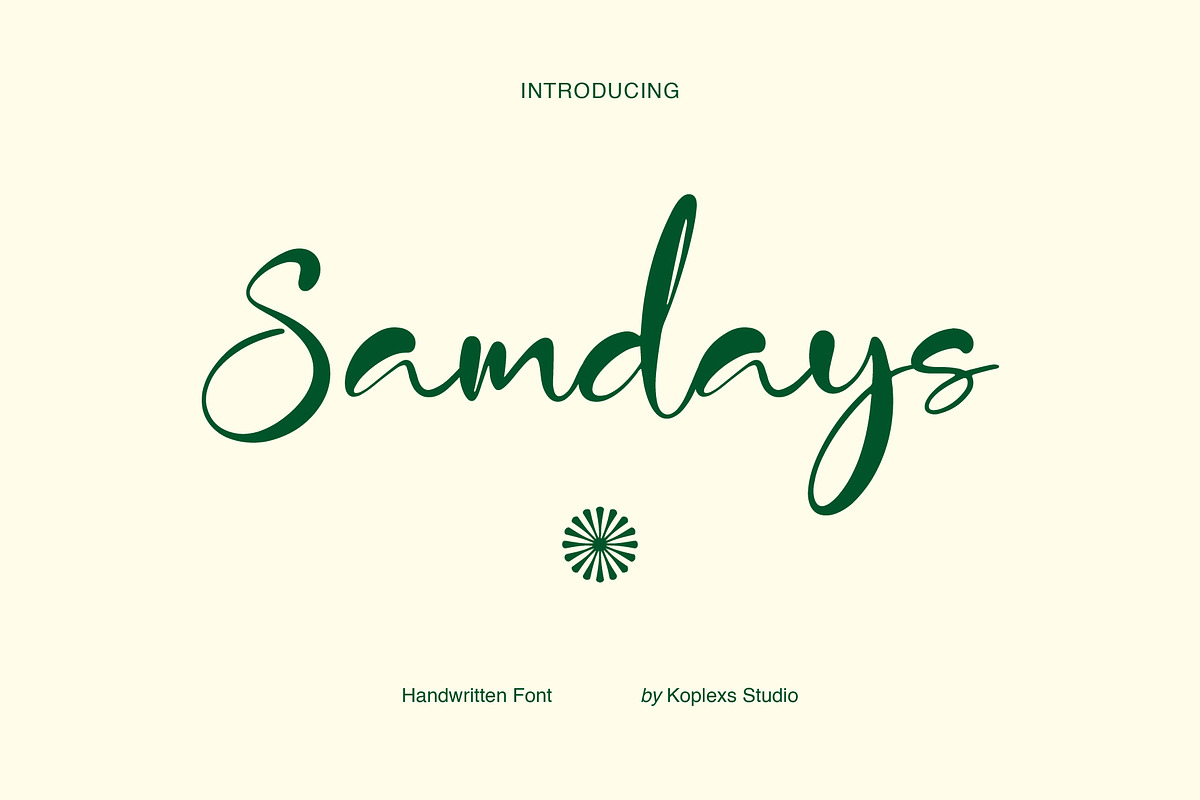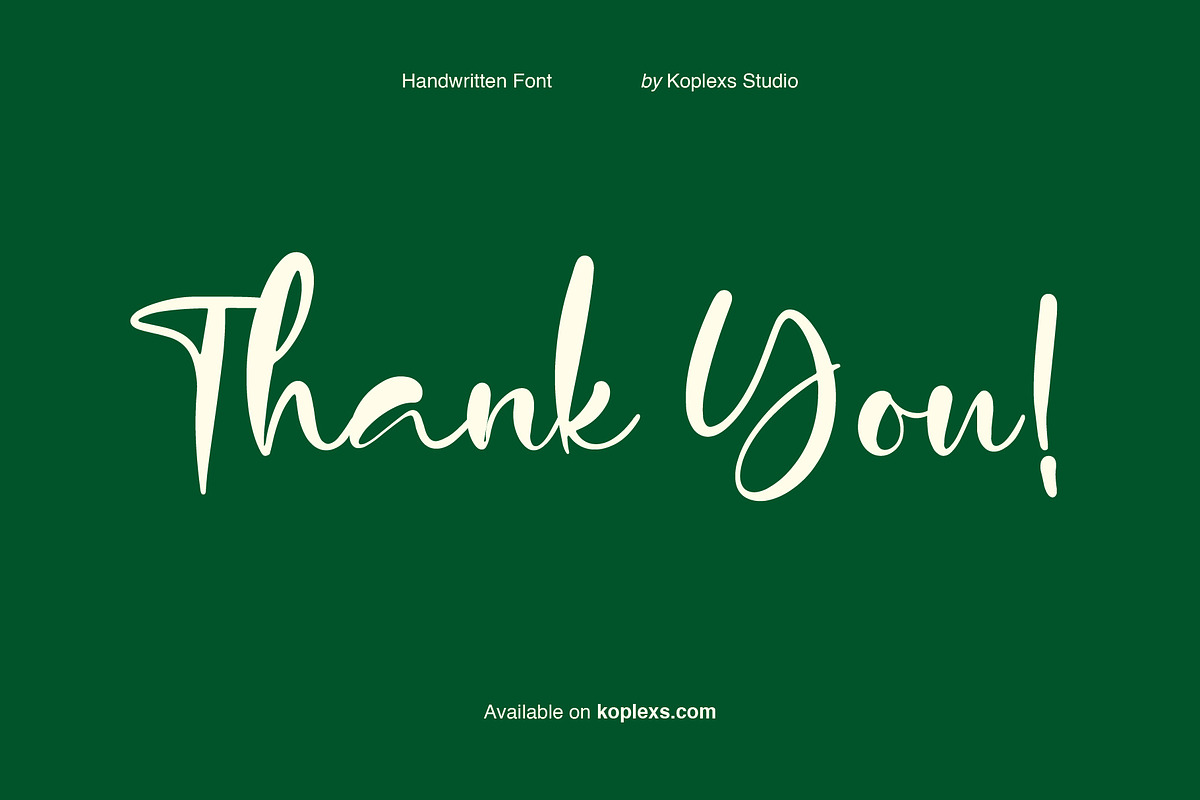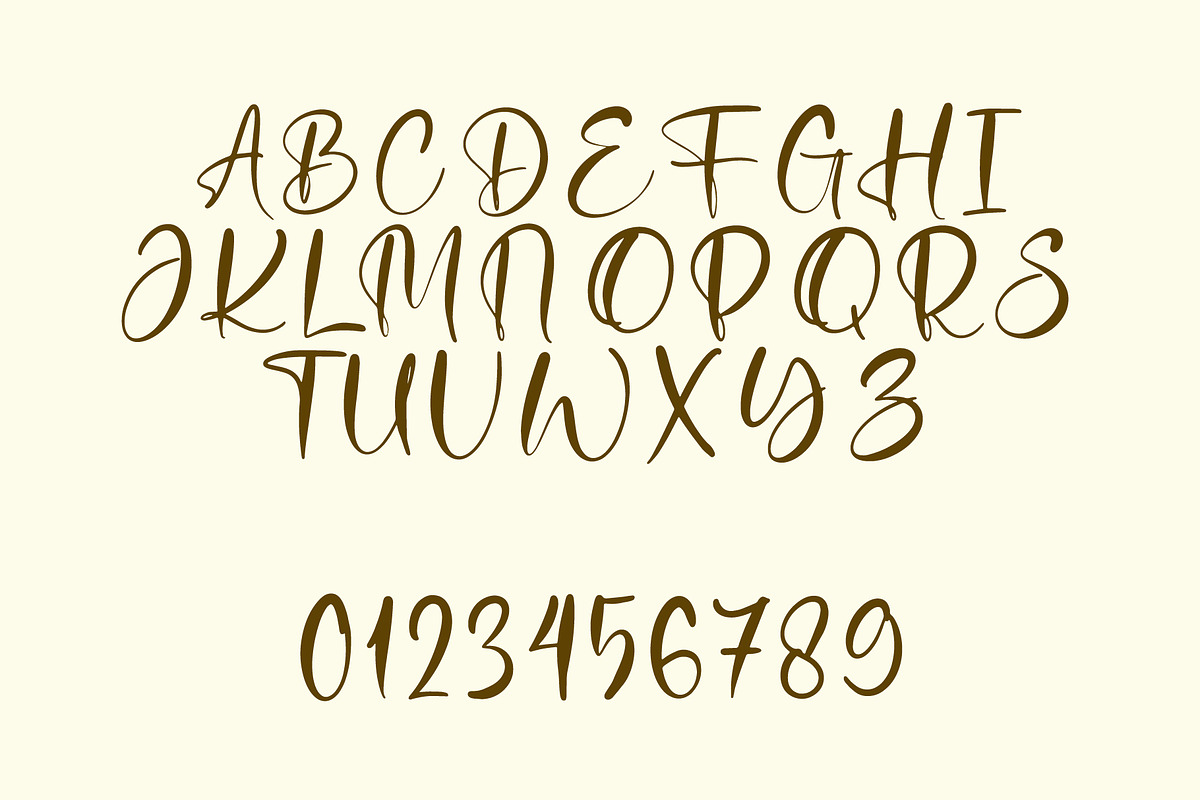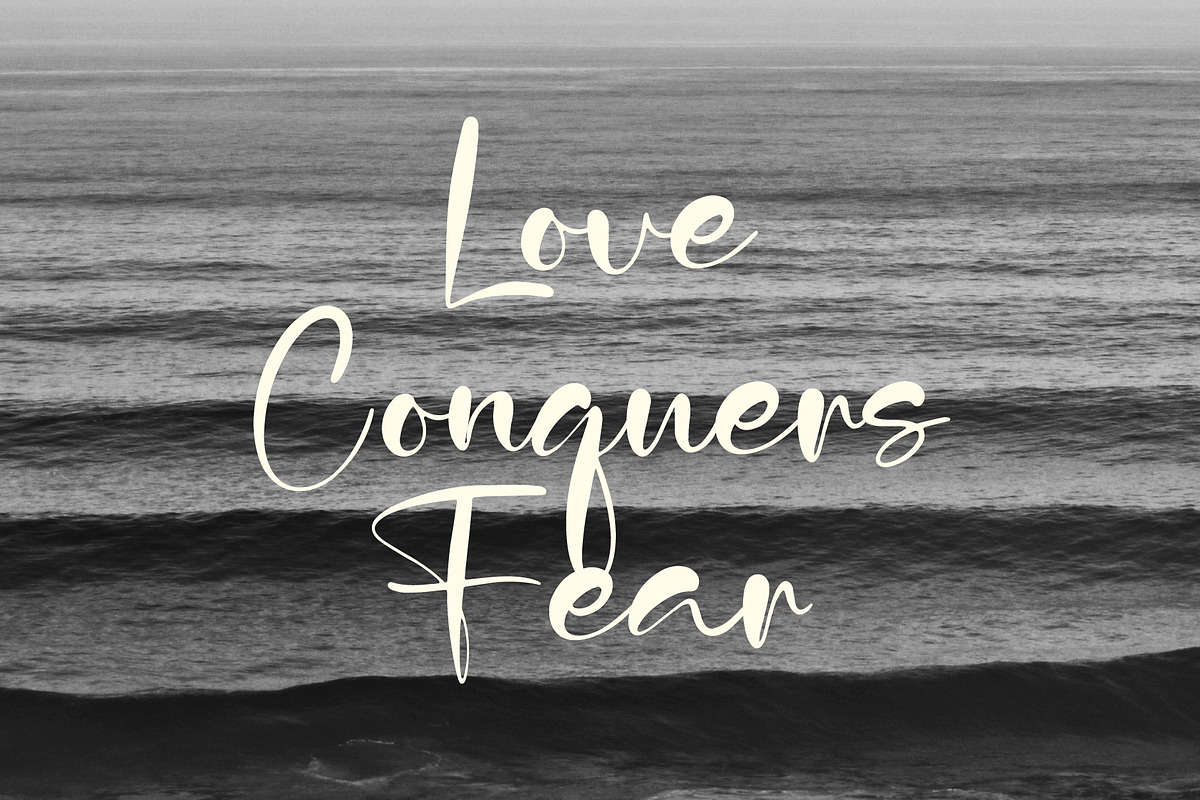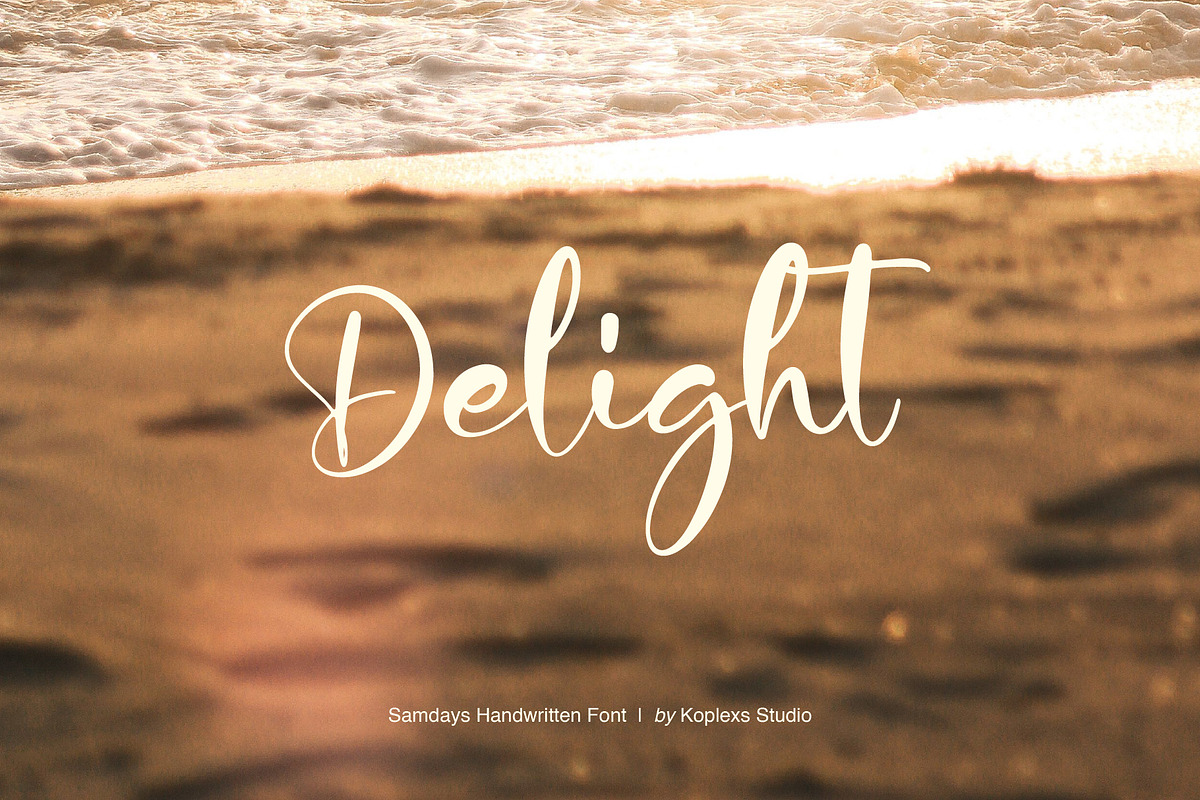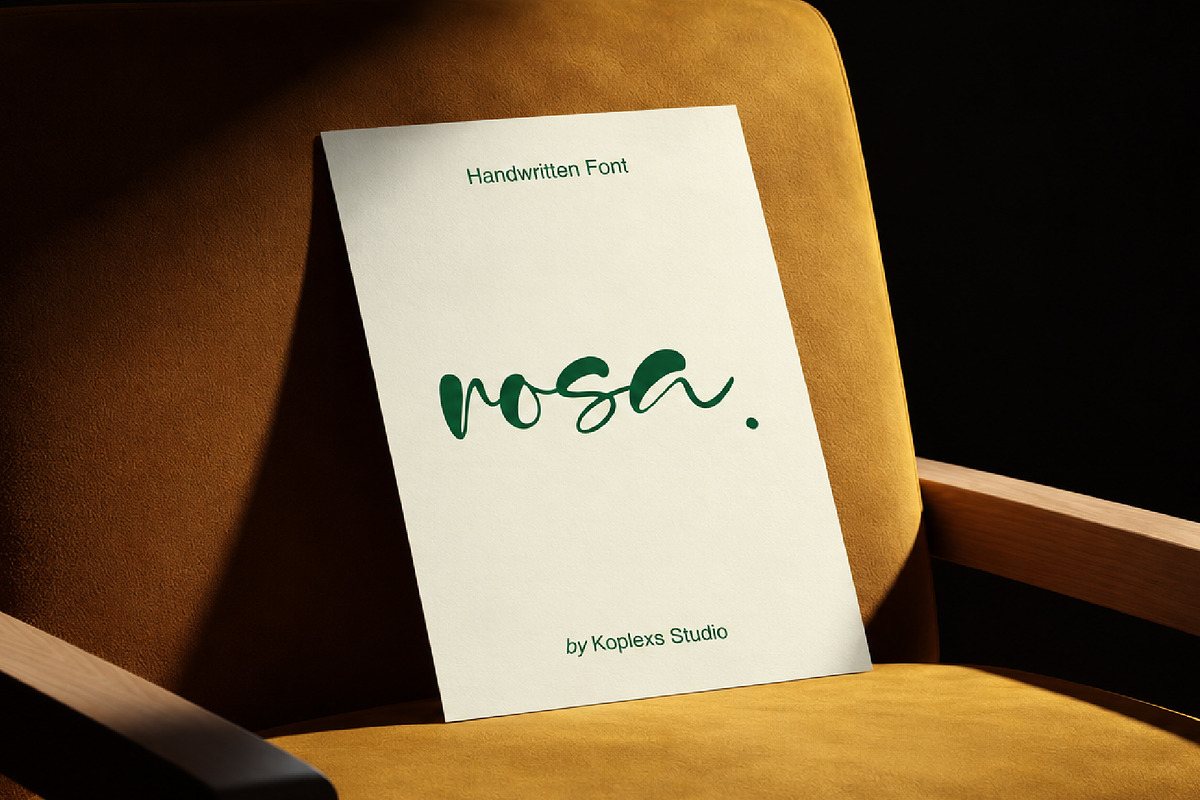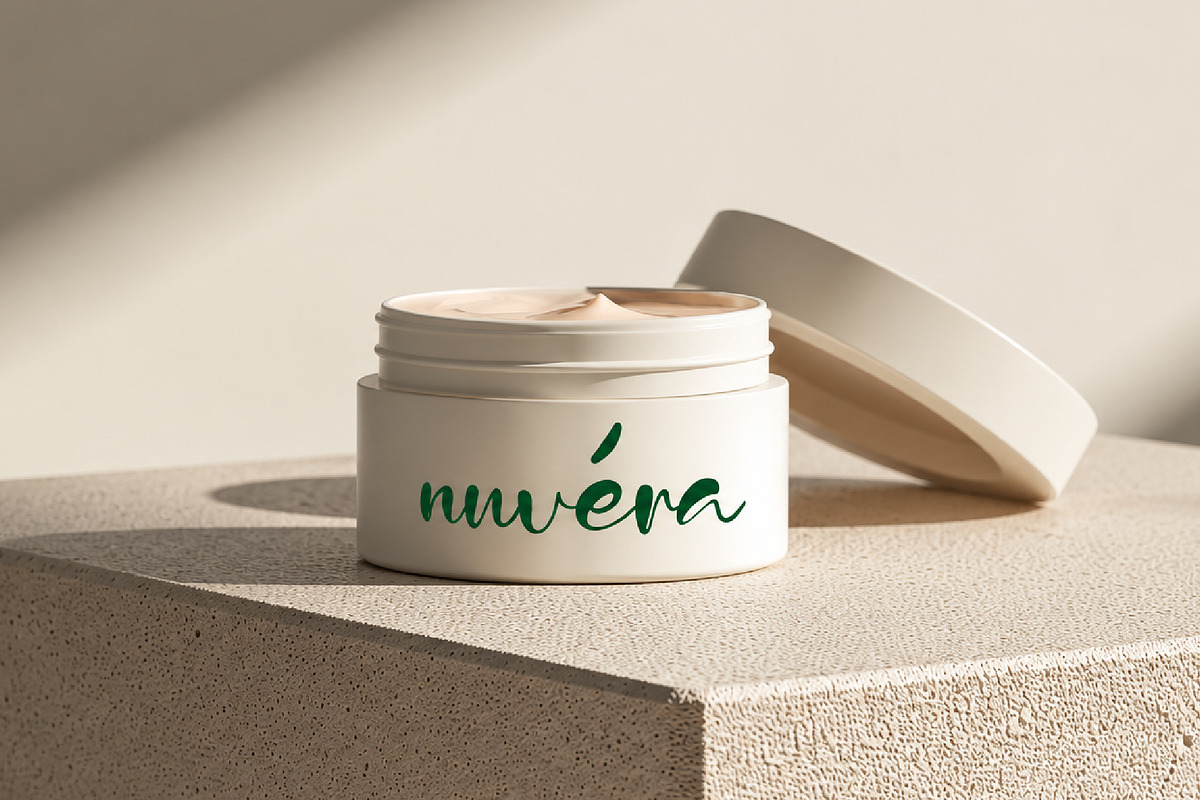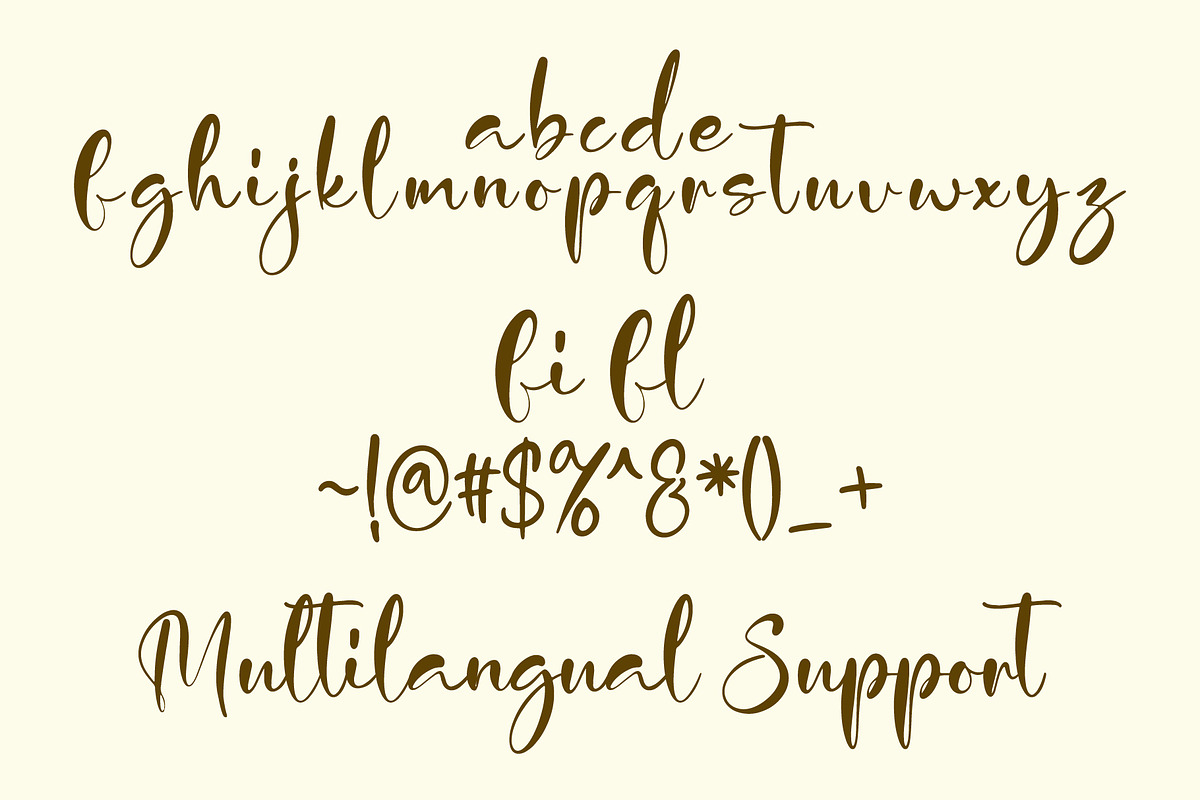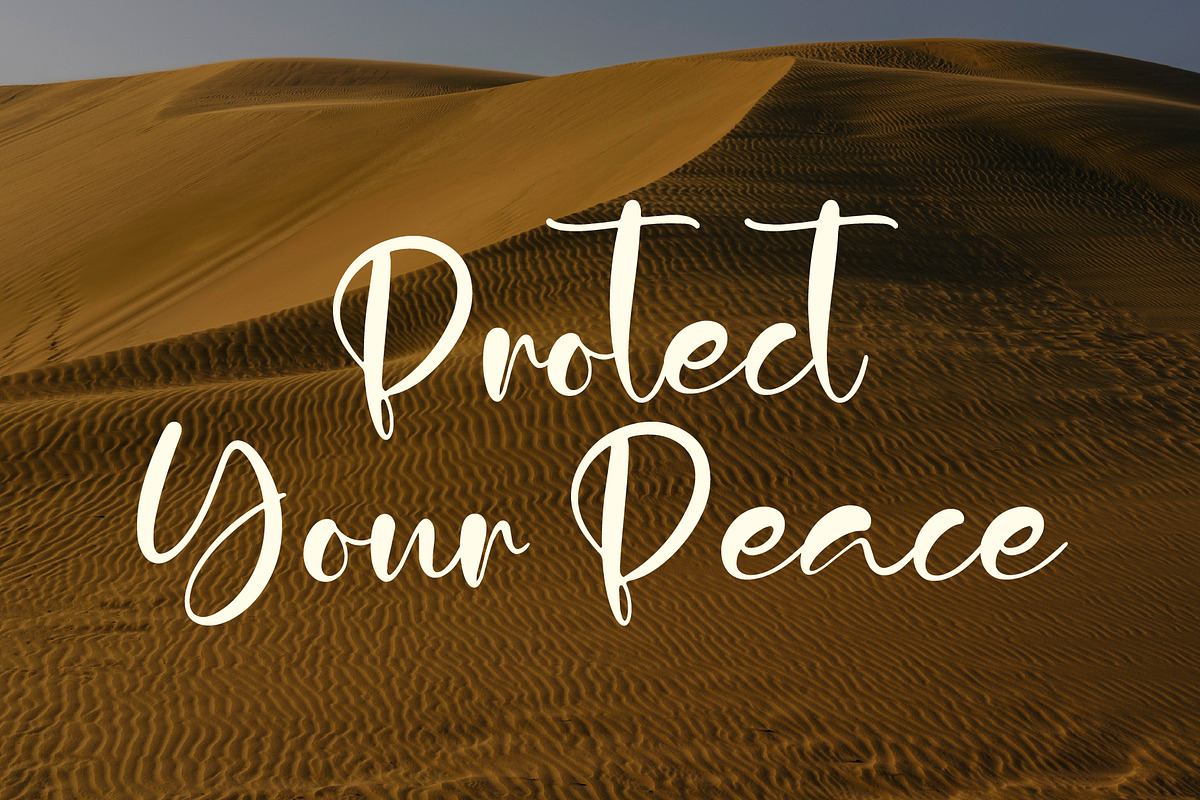
Samdays Font Handwritten Script
Samdays Font is a handwritten script by Koplexs Studio for personal branding, wedding stationery, and thoughtful packaging. Its flowing lowercase, tall loops, and sweeping capitals bring the warmth of a handwritten note to your layout.
Thick downstrokes meet delicate connecting lines, creating a soft calligraphy style with plenty of movement. The lettering feels relaxed and expressive, making it a lovely choice for a skincare label, a boutique logo, or a journal cover with a few meaningful words.
Ideas for your next project
Beauty and wellness branding
Skincare labels and cosmetic packaging
Wedding invitations and save-the-date cards
Personal logos and boutique identities
Journal covers, planners, and stationery
Social media quotes and photo overlays
For a balanced layout, use Samdays for a name, headline, or short phrase, then pair it with a simple sans serif for smaller details. Leave a little extra space around the tall loops so the lettering has room to shine.